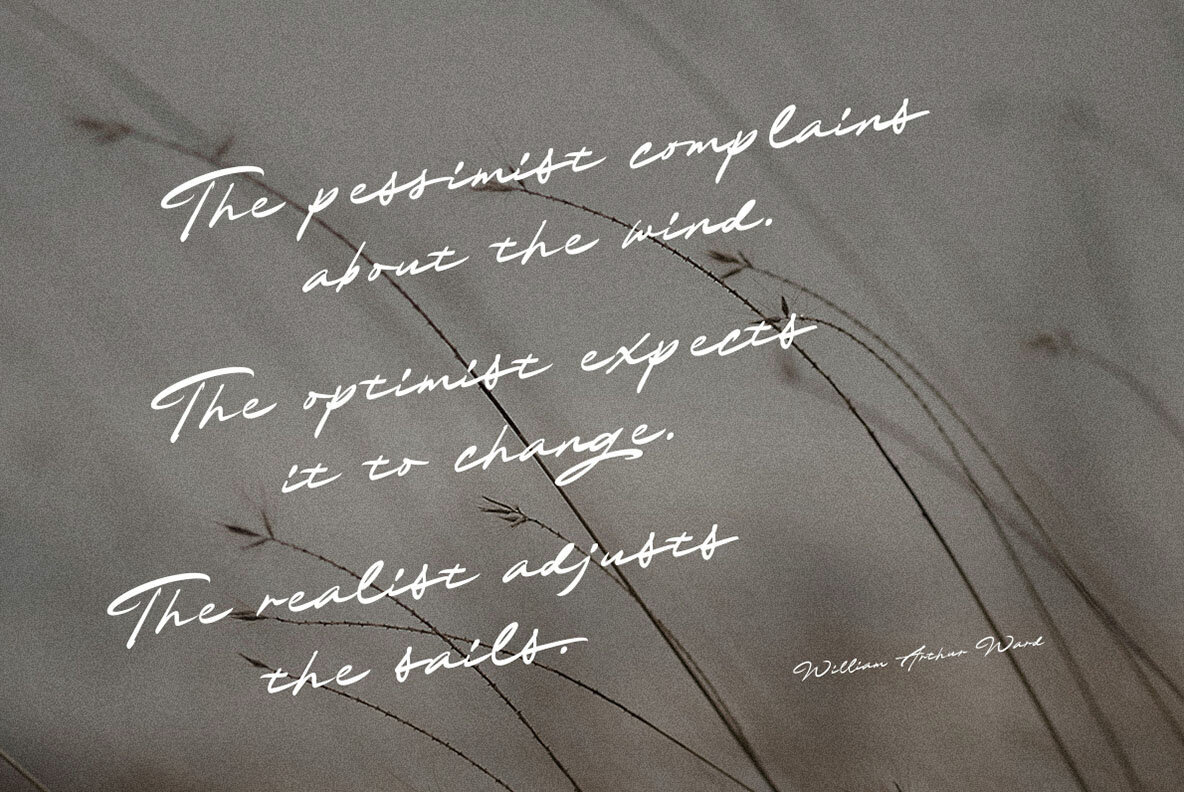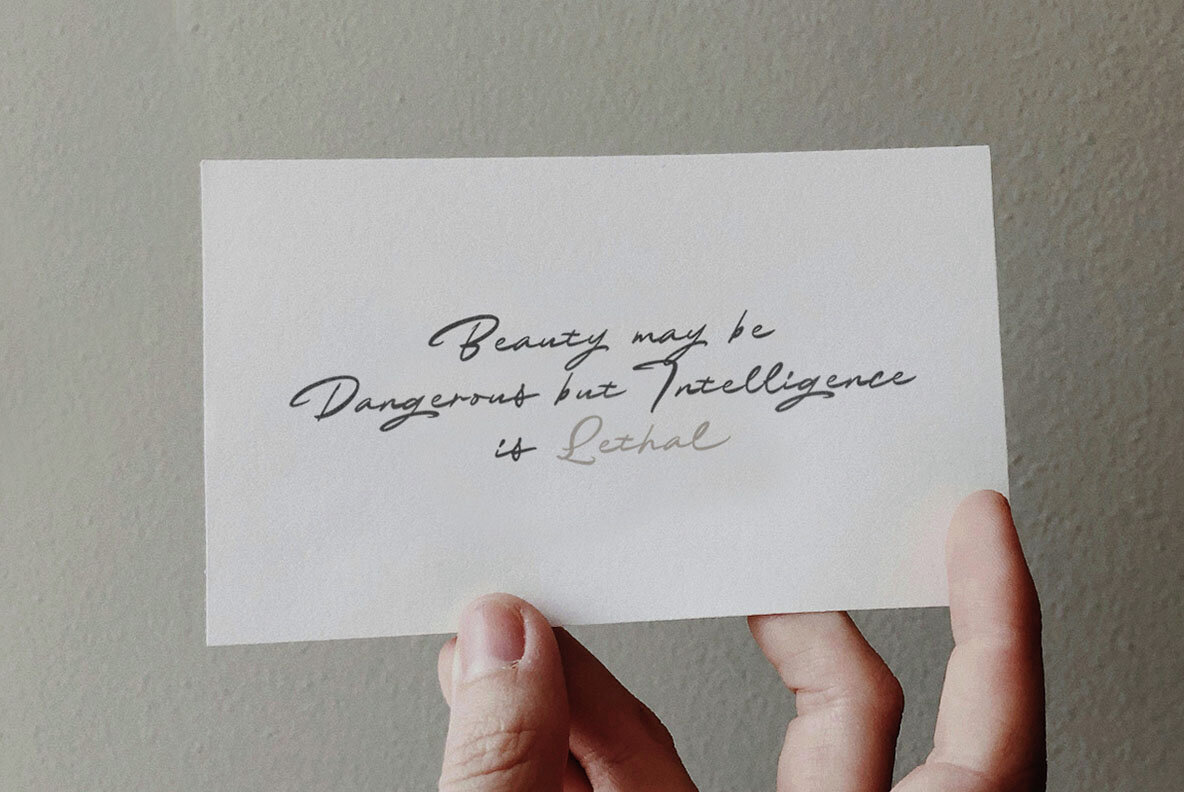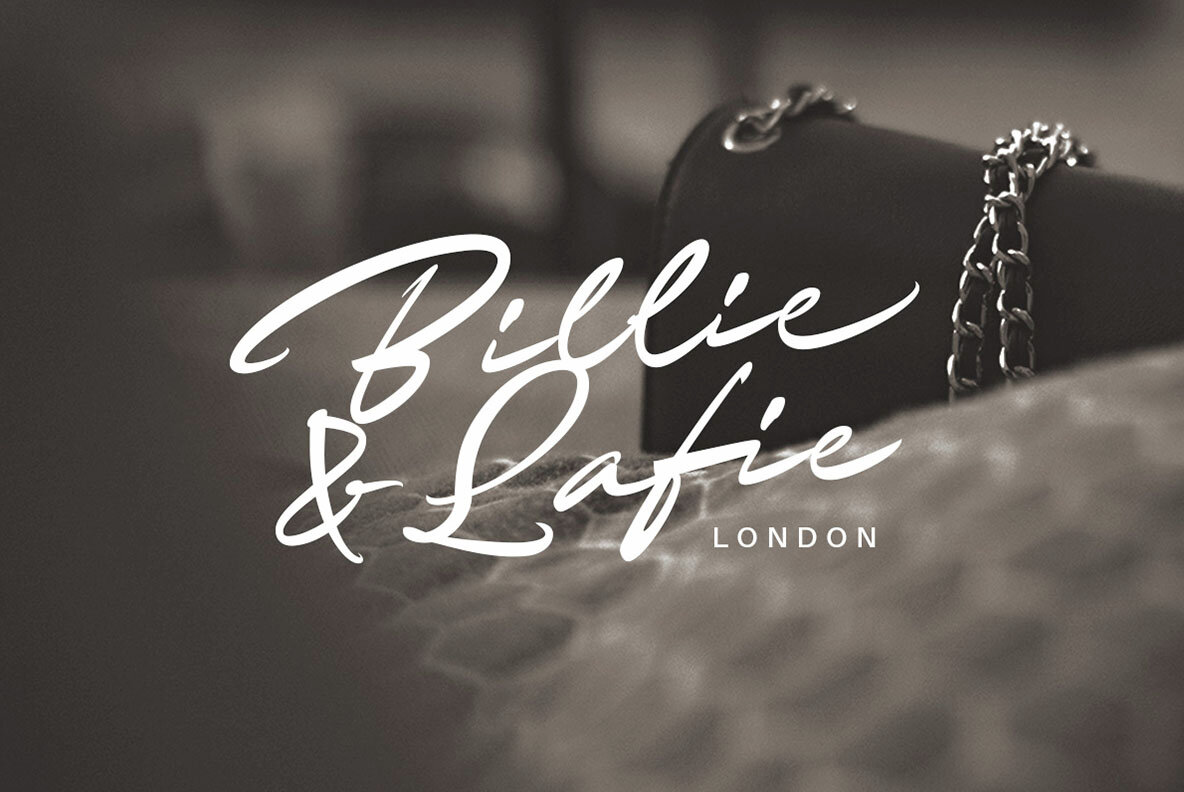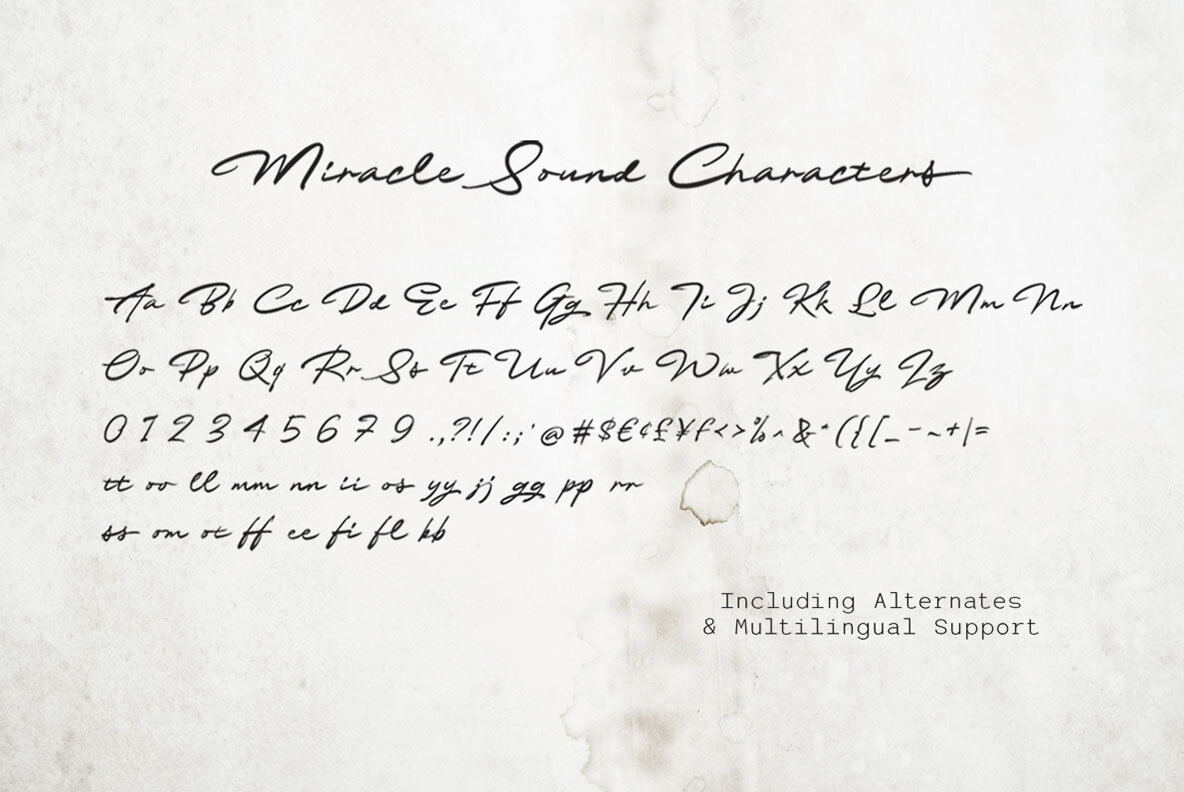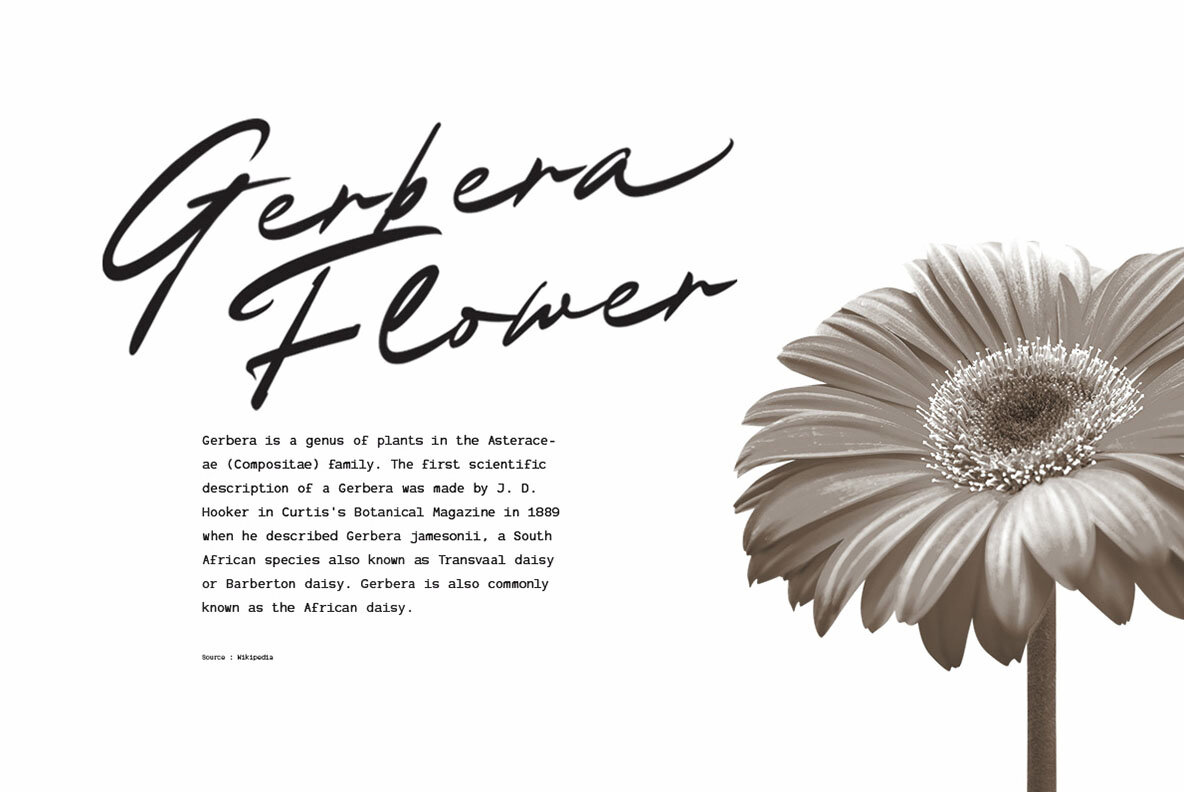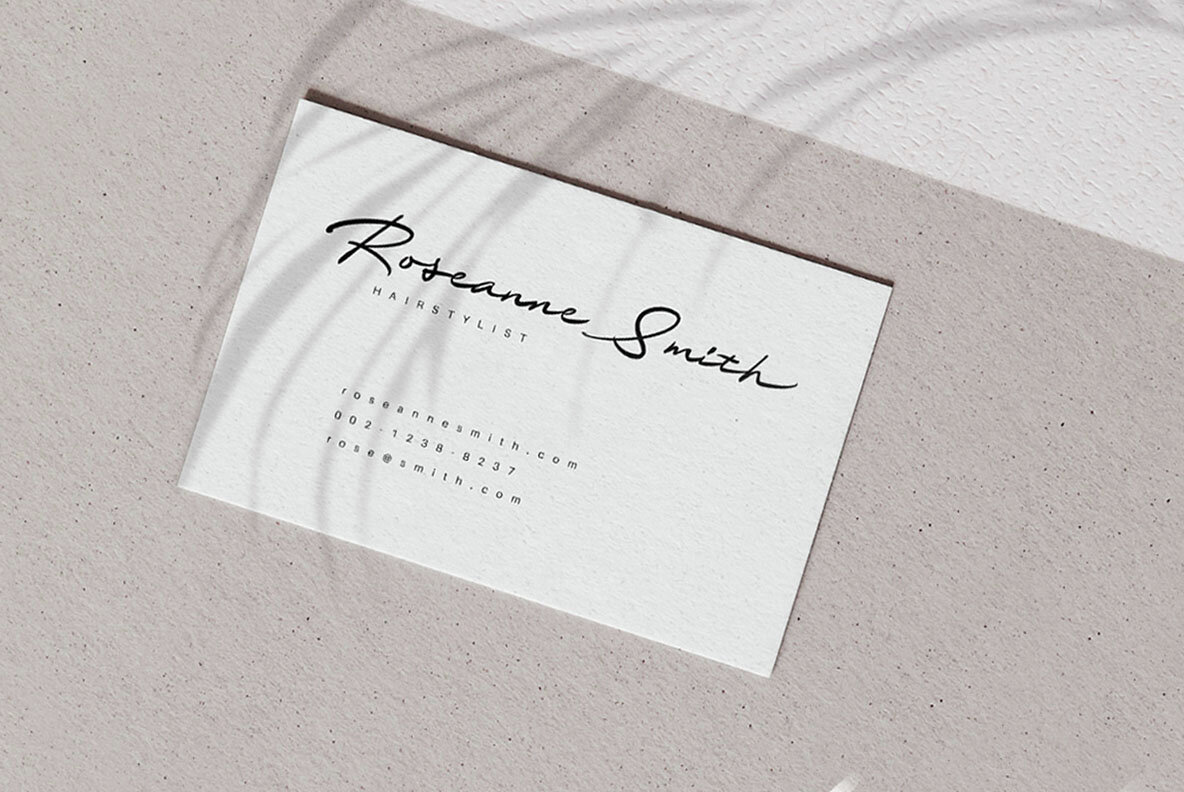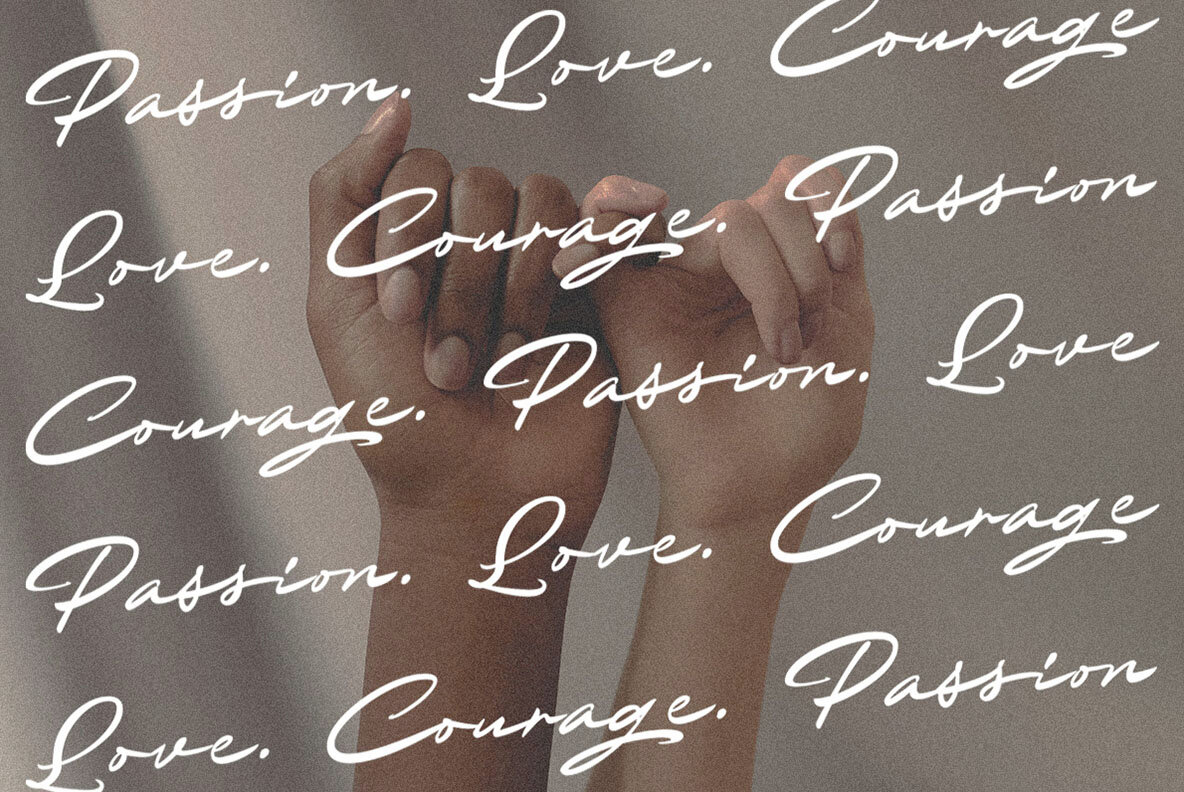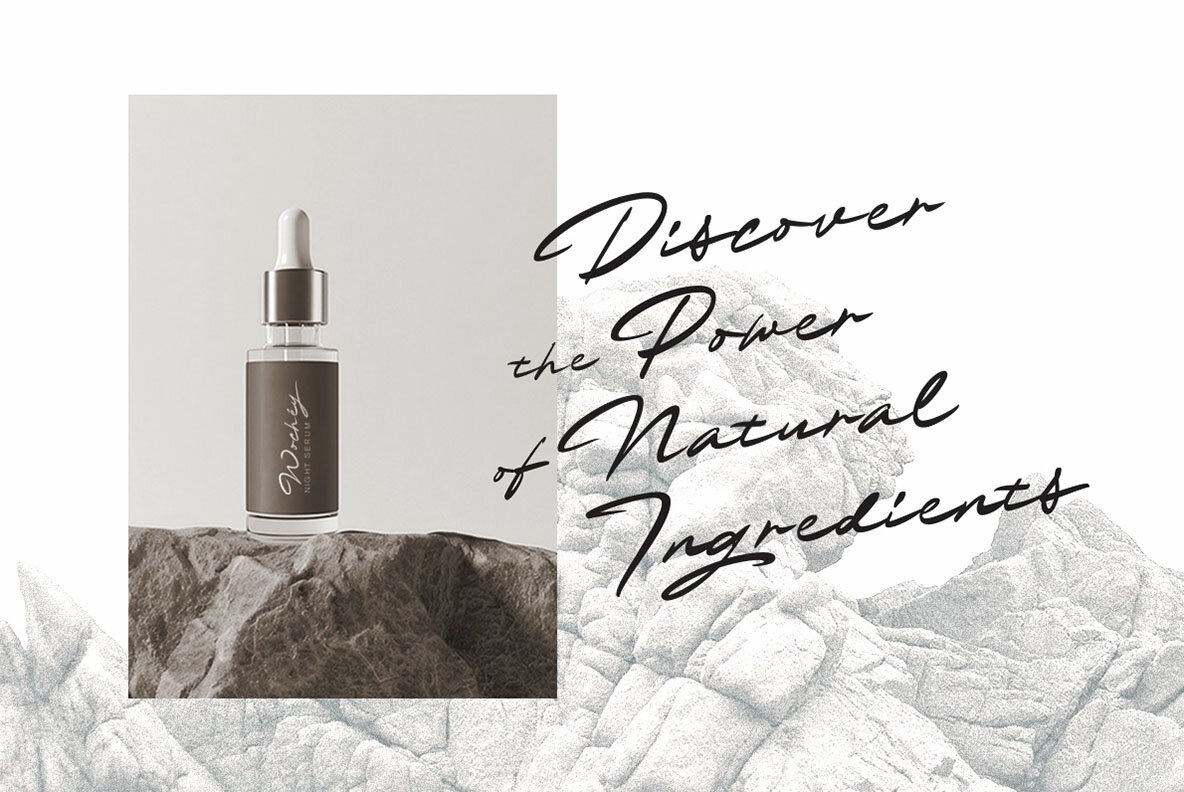
Miracle Sound Font
Miracle Sound
Miracle Sound is a stunning signature script inspired by authentic handwriting. Perfectly suited for logos, invitations, labels, magazines, books, greeting and wedding cards, packaging, fashion, makeup, stationery, novels, and various advertising purposes, this font adds a refined touch to any project.